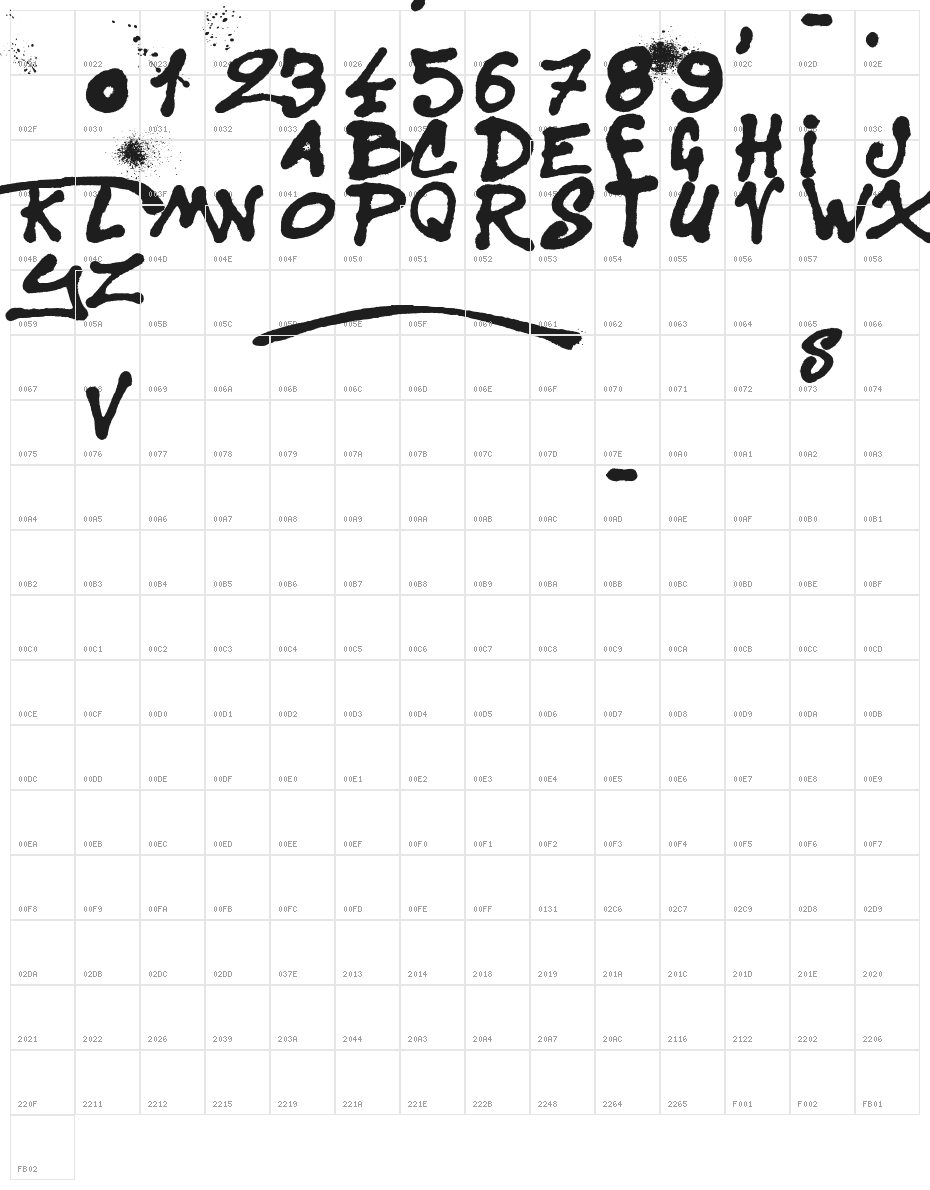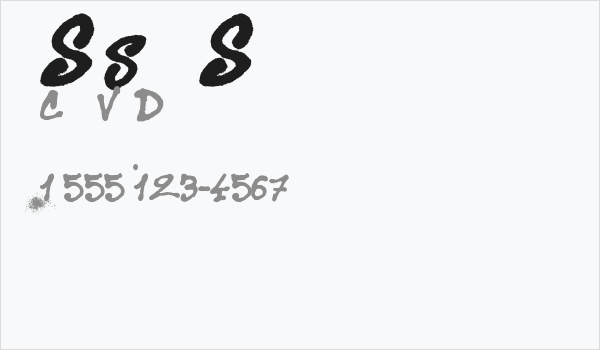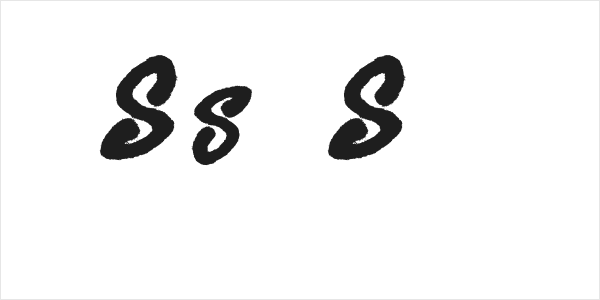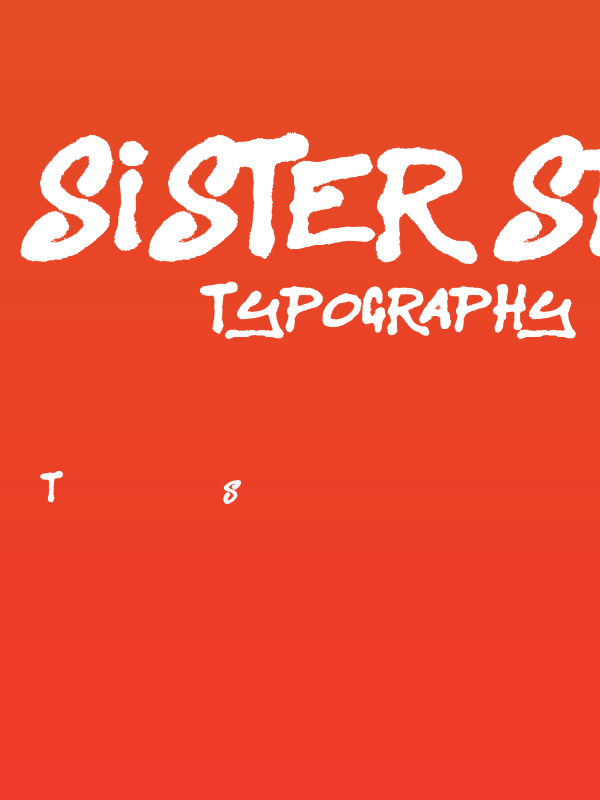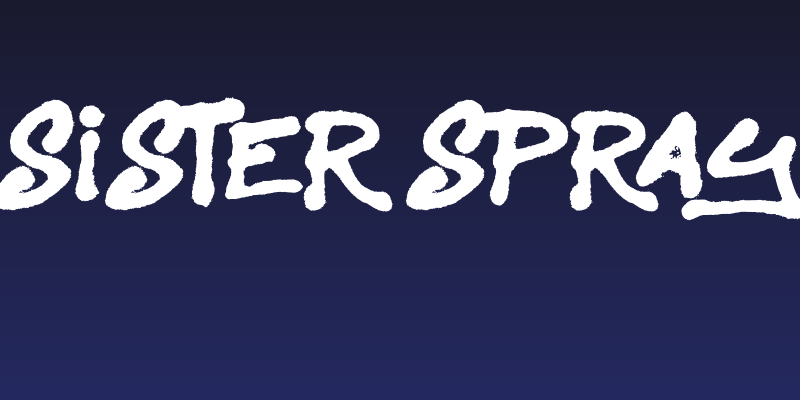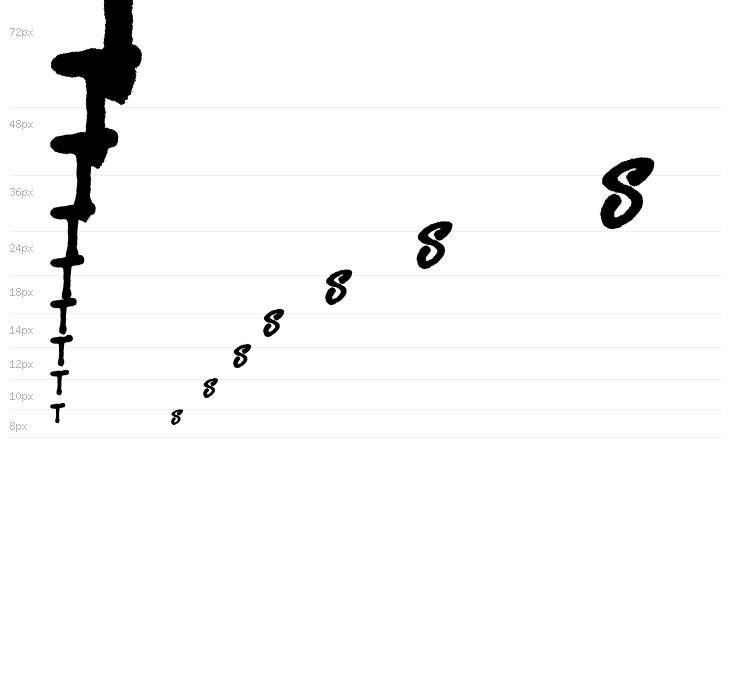
Sister Spray Font
✎ Messy
| Categorie | Messy |
| Stile generale | Urban, Edgy, Expressive |
| Caso d'uso | Logos, Posters, Album Covers |
| Progetti proposti | Perfect for street art designs, urban-themed posters, edgy branding projects, and music album covers. |